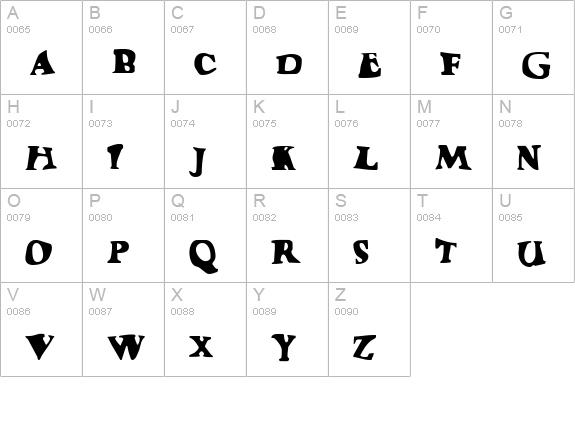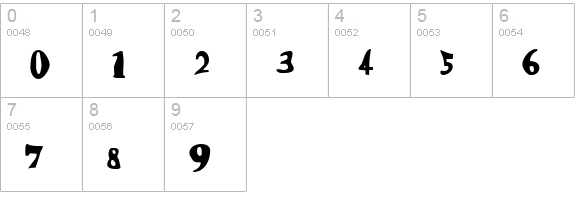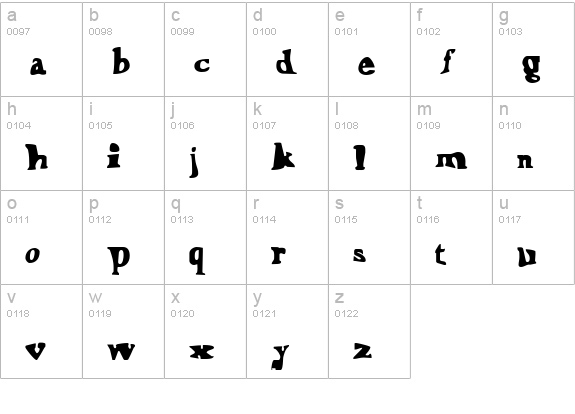
Happy LarryRegular font is a delightful and cheerful typeface that is sure to bring a smile to your face. With its clean lines and playful curves, this font exudes a sense of joy and positivity. Whether you're working on a fun project or just want to add a touch of whimsy to your designs, Happy LarryRegular is the perfect choice. What makes Happy LarryRegular even more appealing is that it is available for free! That's right, you can download this font at no cost from FontsMarket.com. This means that you can enjoy the beauty and charm of Happy LarryRegular without breaking the bank. The versatility of Happy LarryRegular is another reason why it has become a favorite among designers. It works well in a variety of settings, from logos and branding to invitations and posters. Its legibility ensures that your message will be easily understood, while its unique personality adds a touch of individuality to your work. With Happy LarryRegular, you can let your creativity soar without any limitations. So go ahead and download this delightful font today from FontsMarket.com. It's time to spread happiness and bring a little extra joy to your designs.